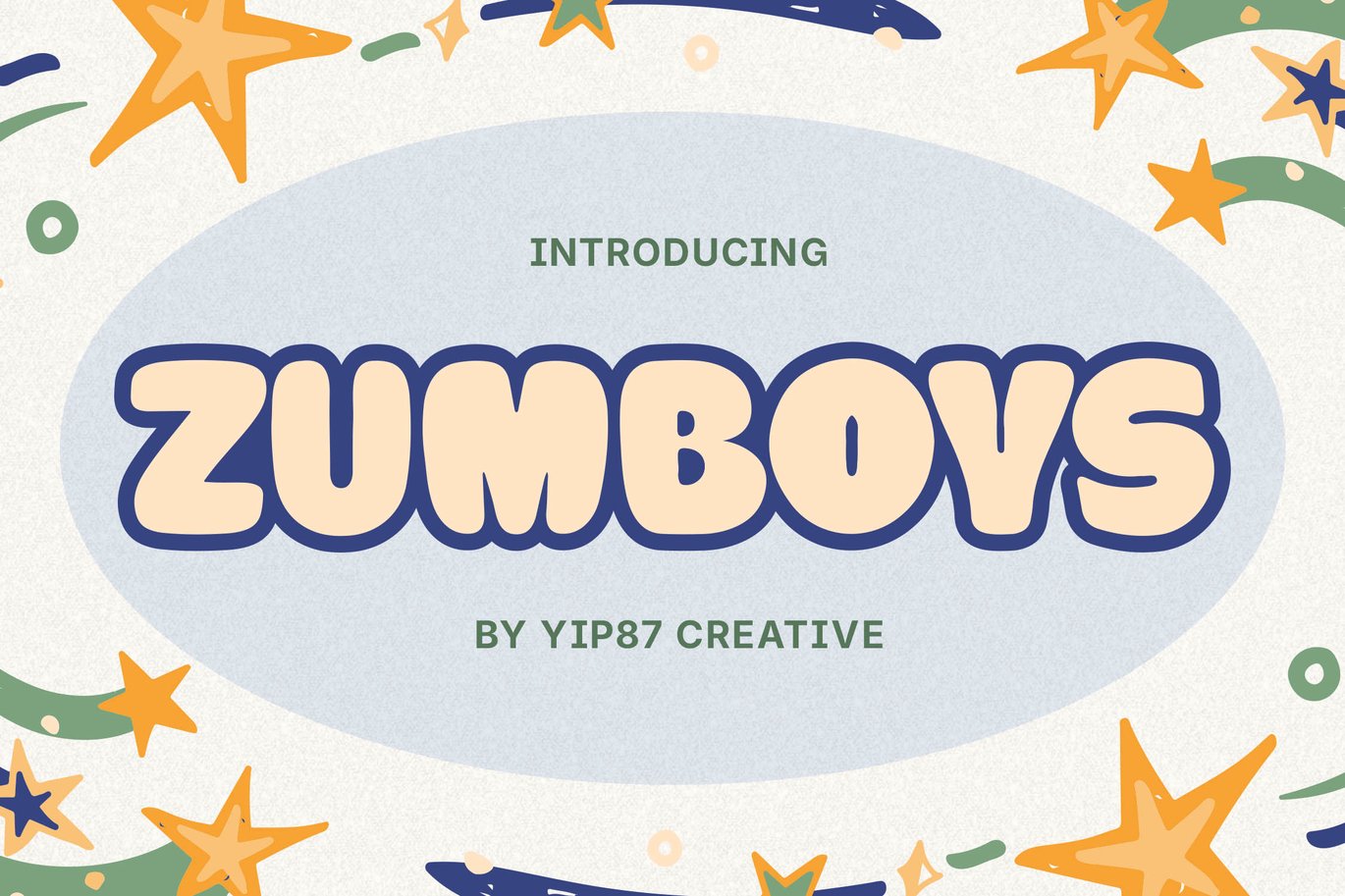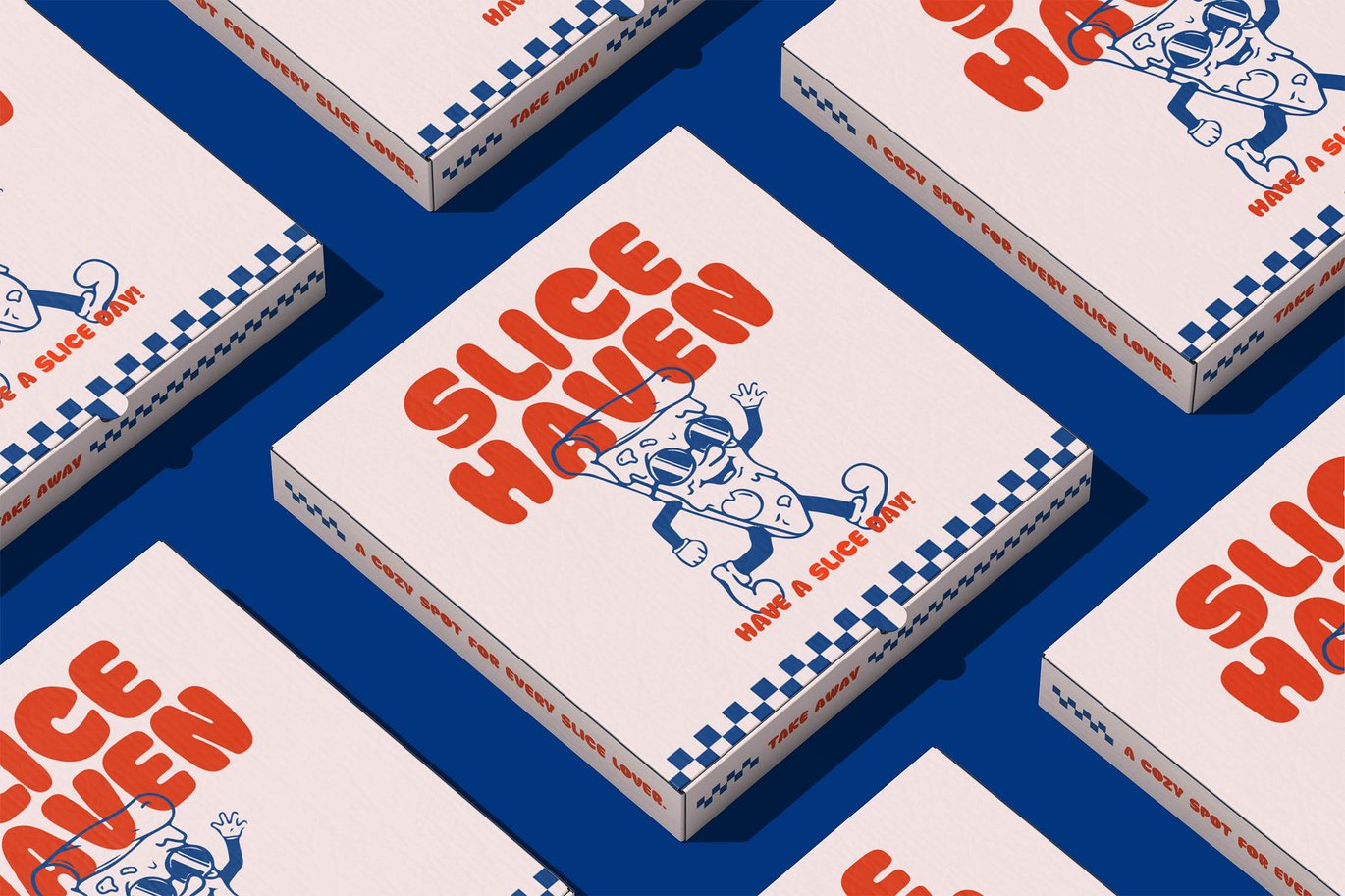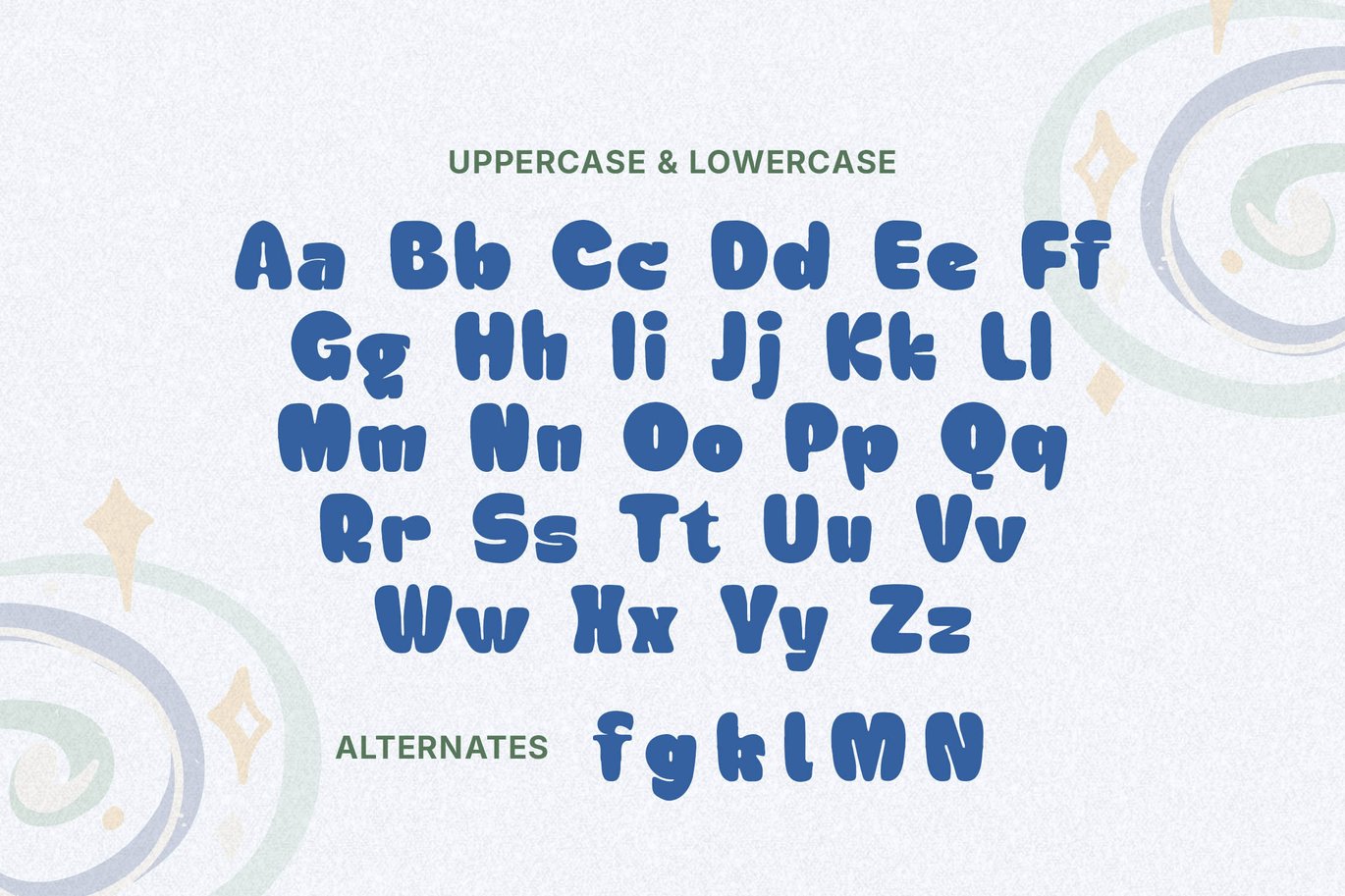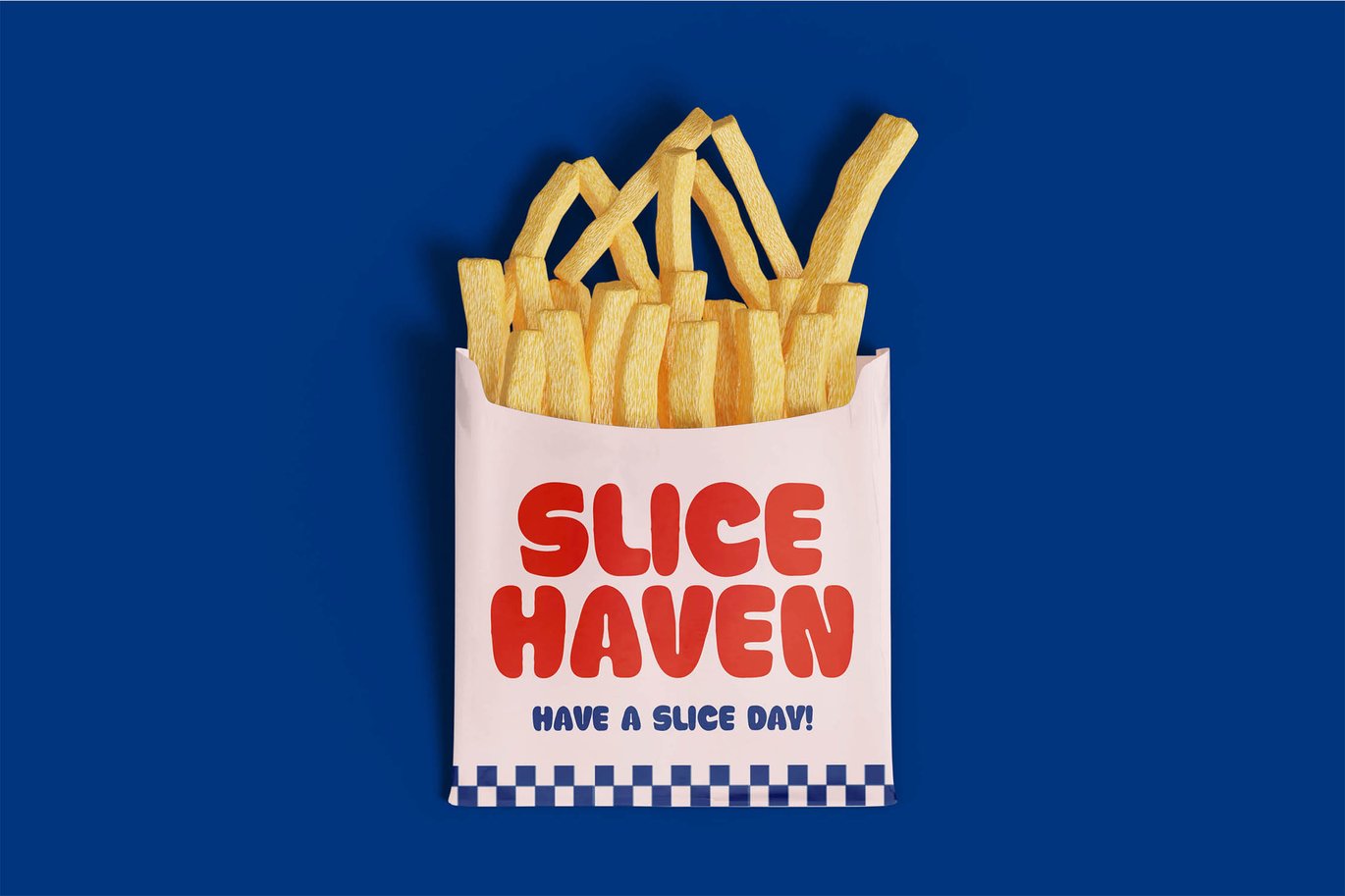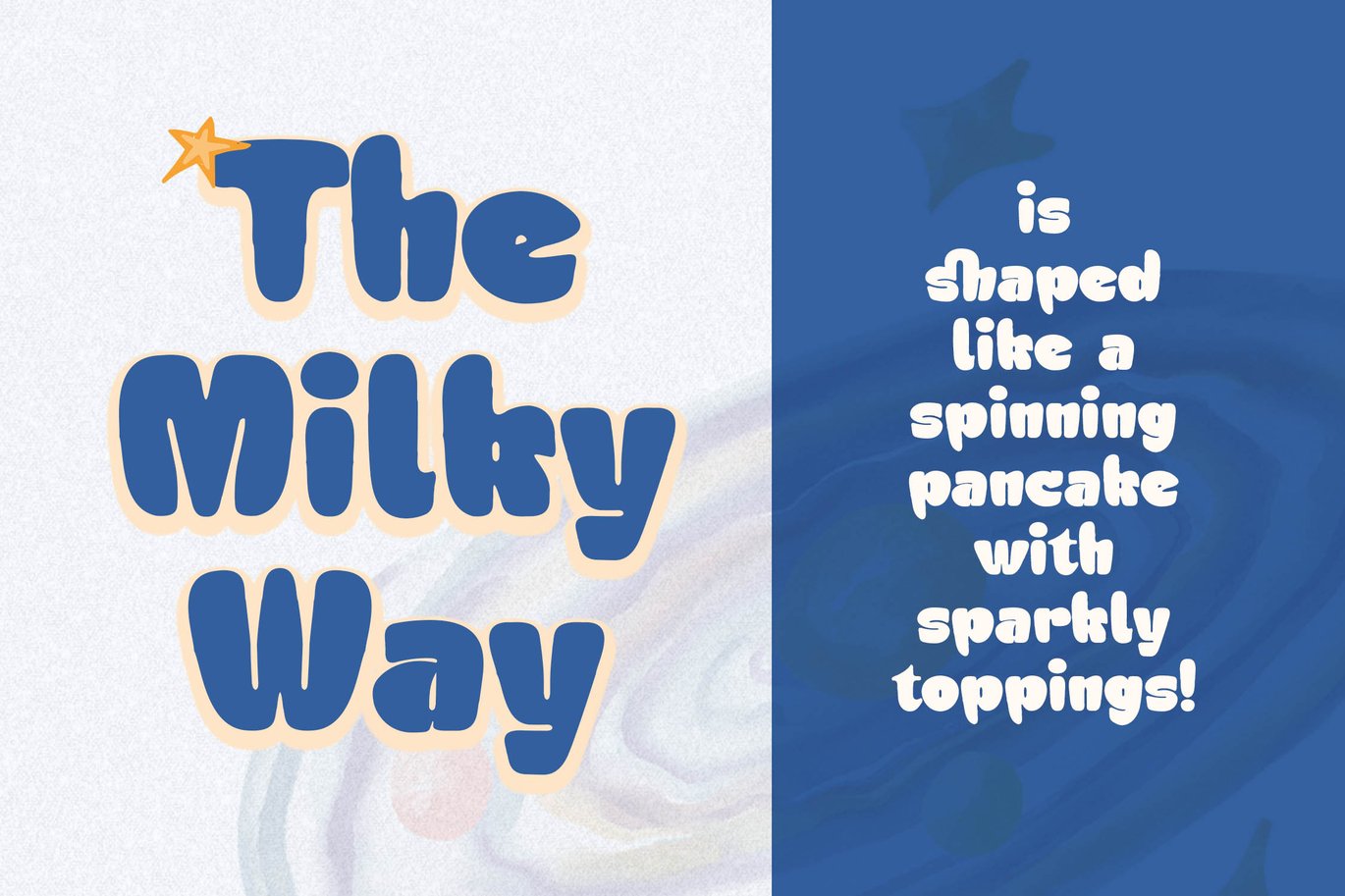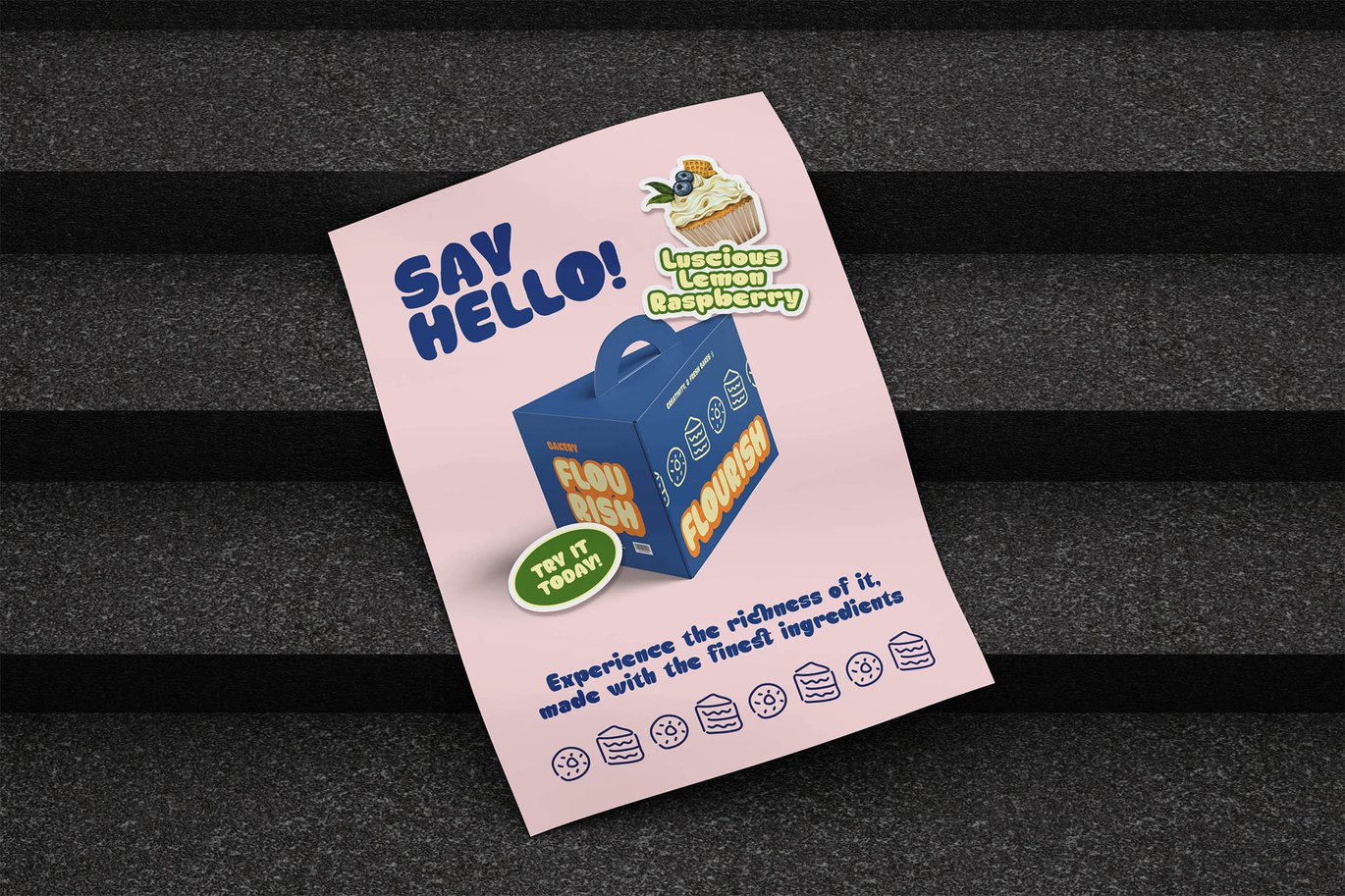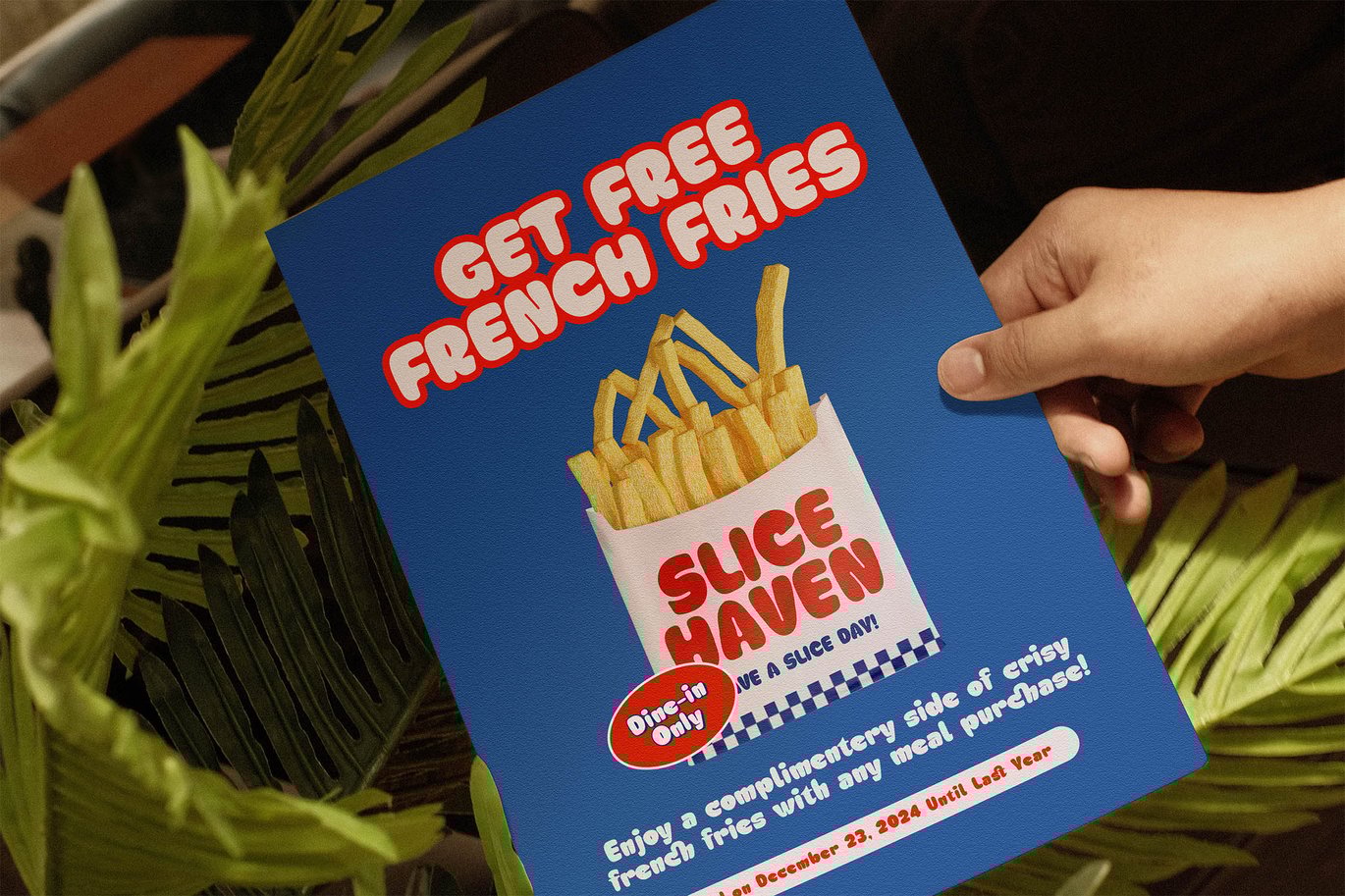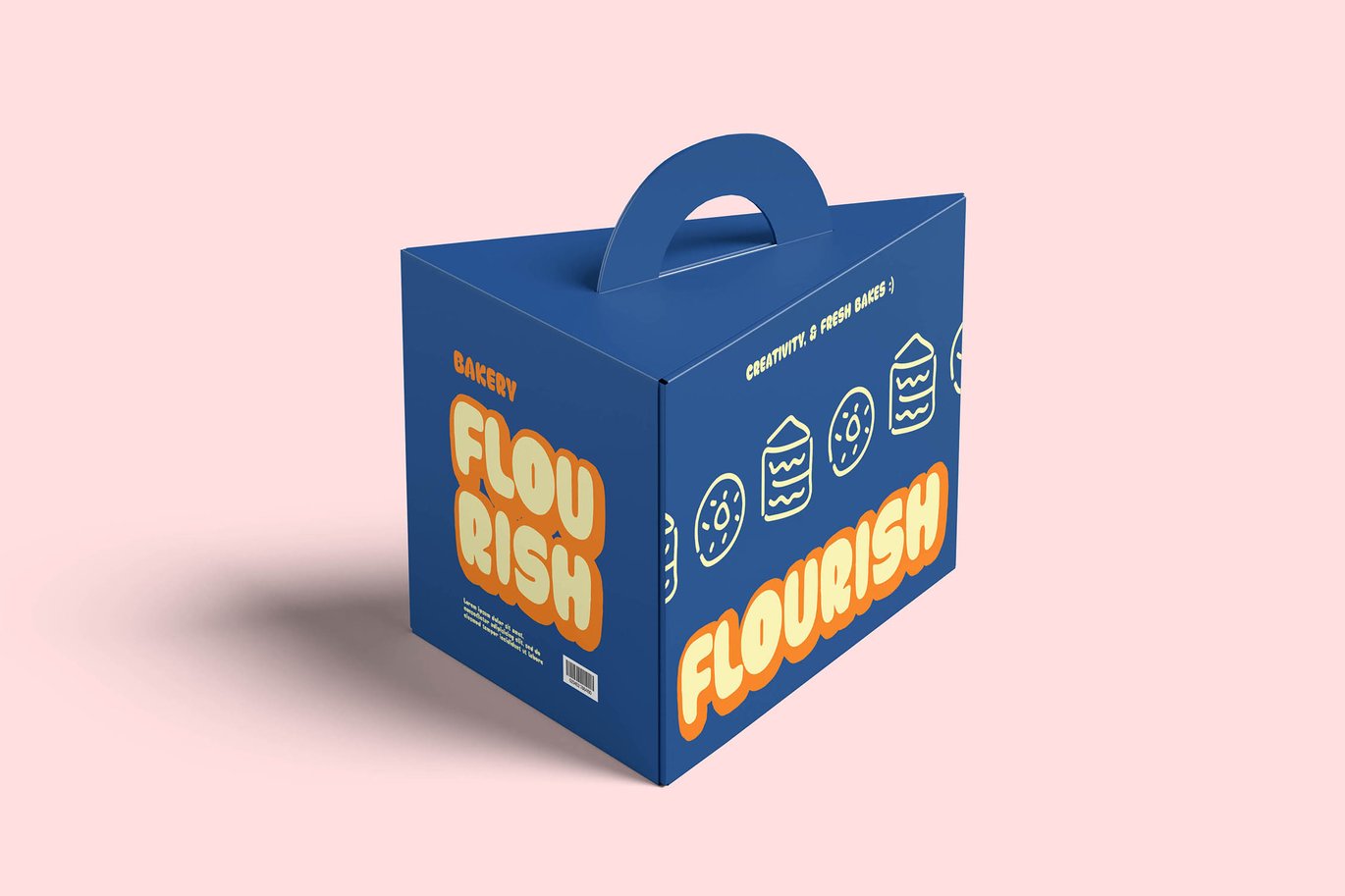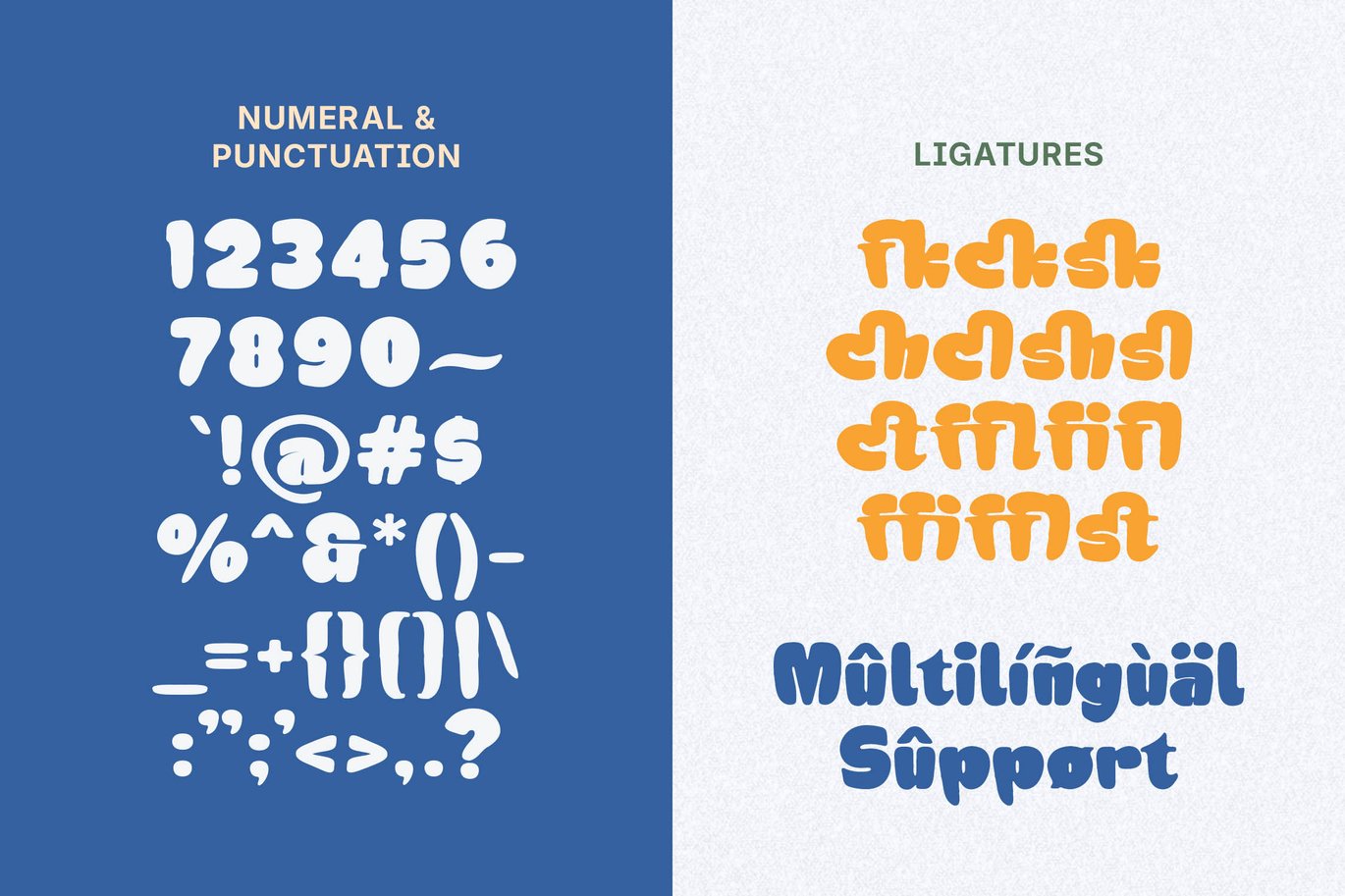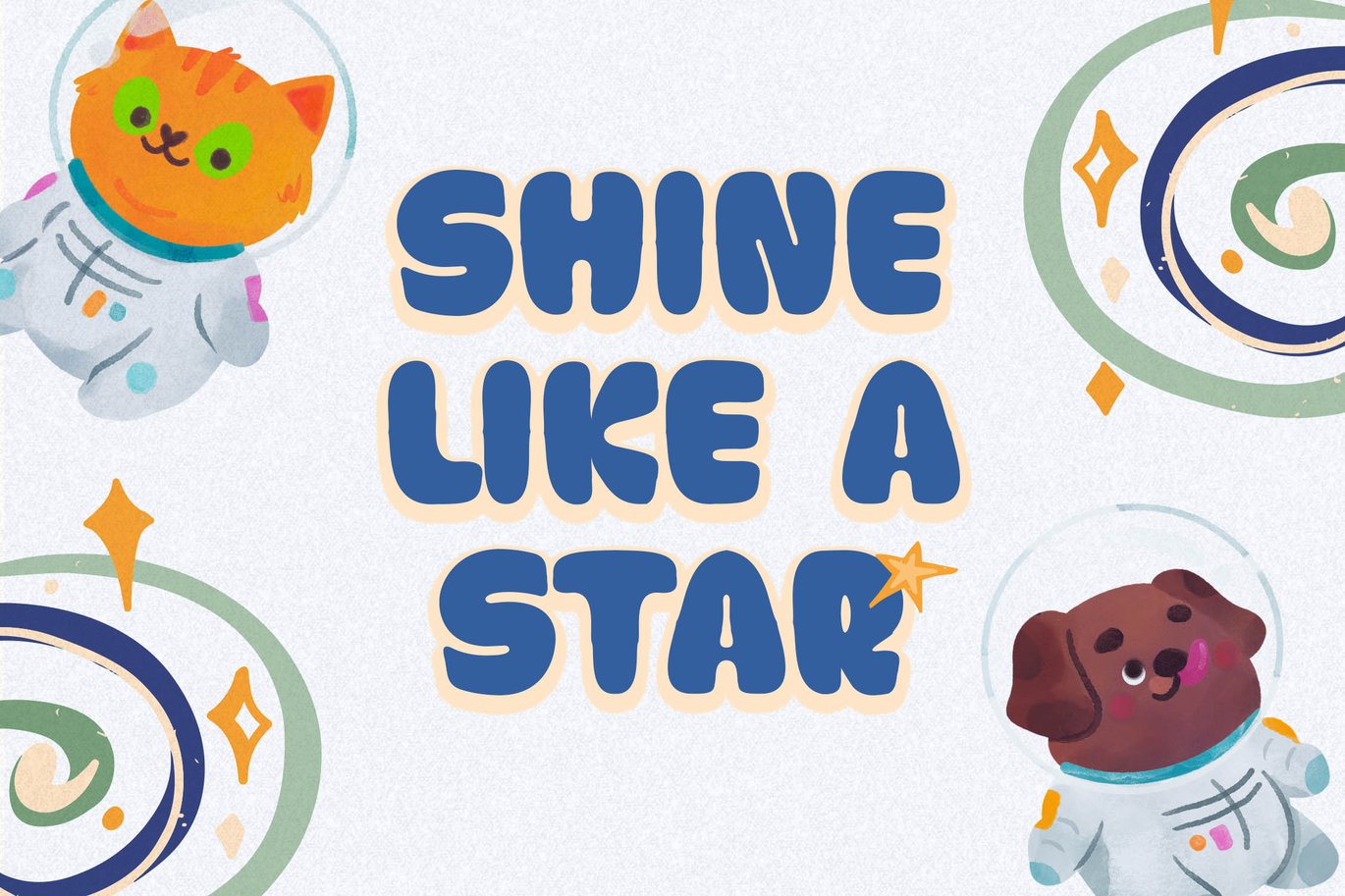
Zumboys – Cute Funny Playful Cartoon Kid Font
Zumboys – Cute Funny Childern School Book Font
Zumboys font is playfulness, charming and energetic style captures the essence of childhood imagination and playful creativity. Perfect for children’s products and toys, children’s books and publications, educational materials, event invitations and party decorations, carnivals and amusement parks, playgrounds and play areas, animated films and cartoons, use the font in title sequences, character names, and dialogue bubbles for animated films, cartoons, and animations aimed at children.